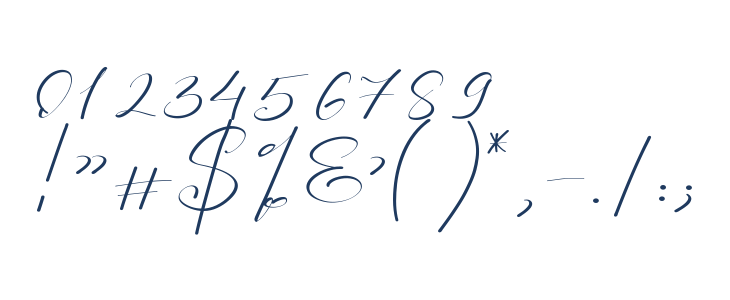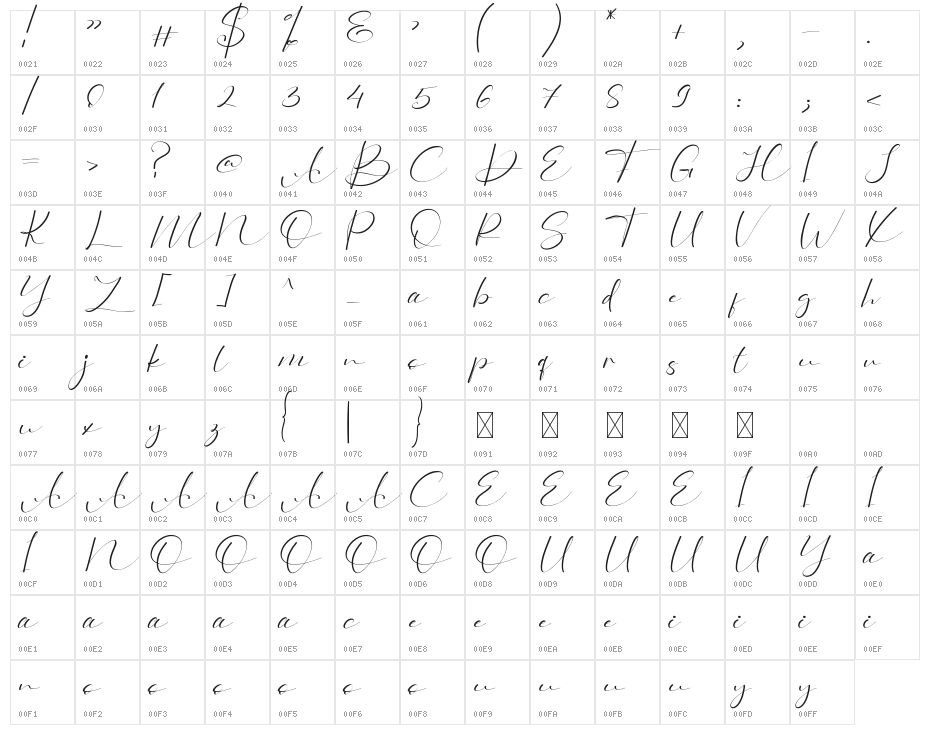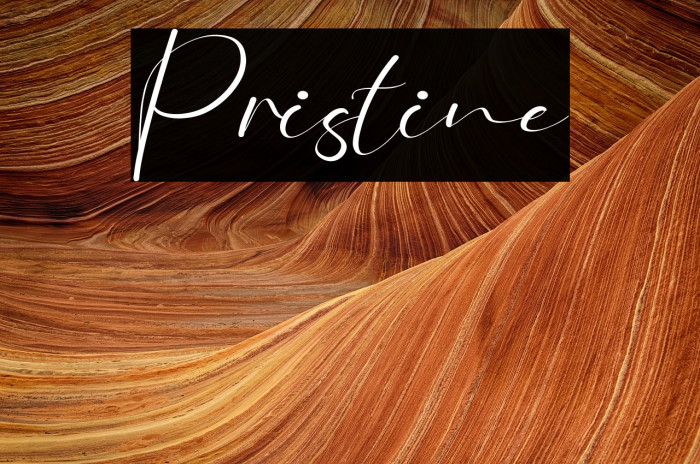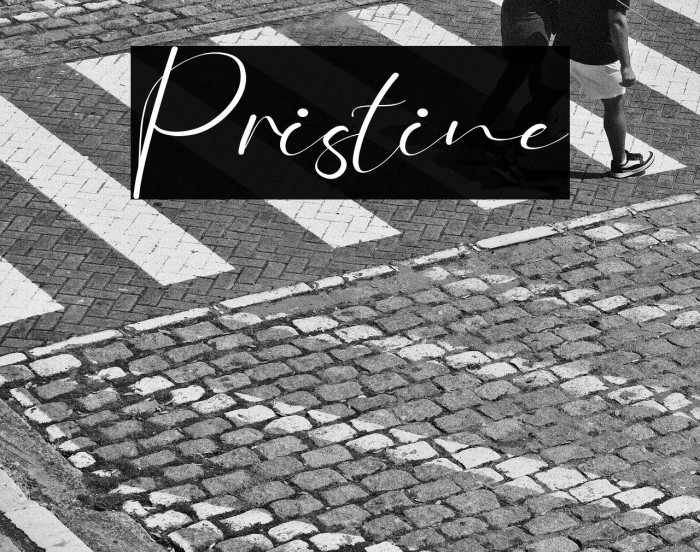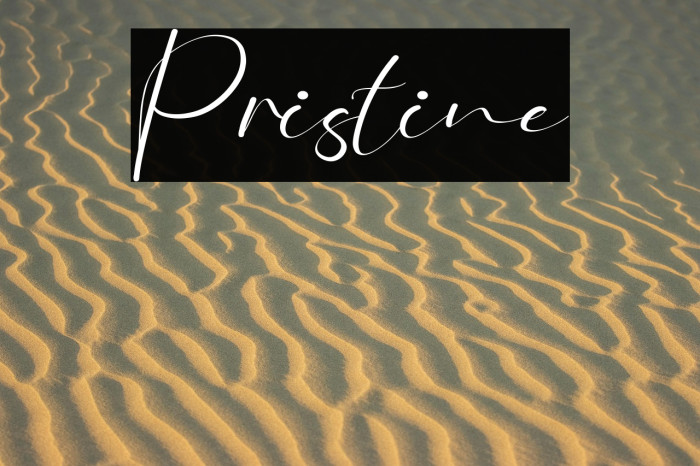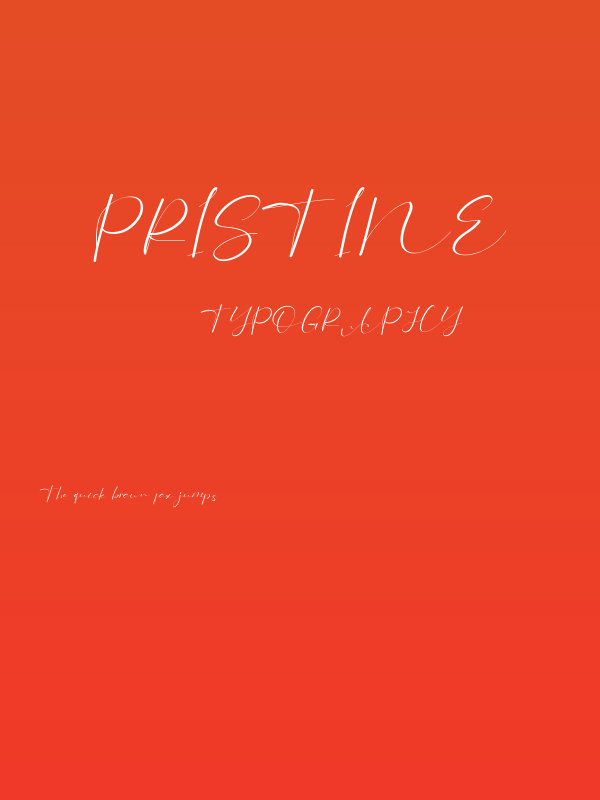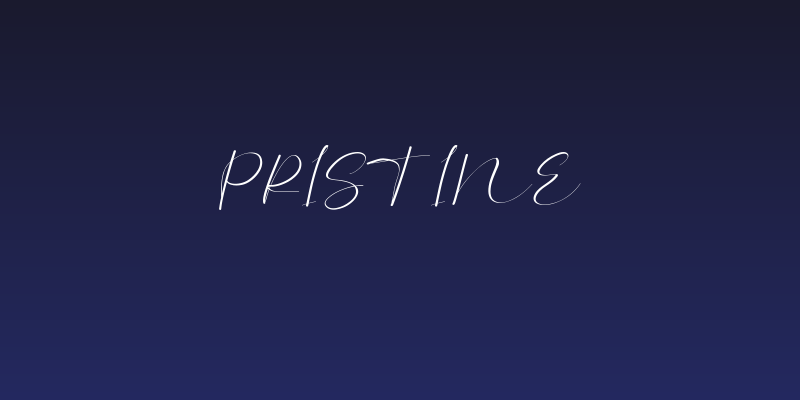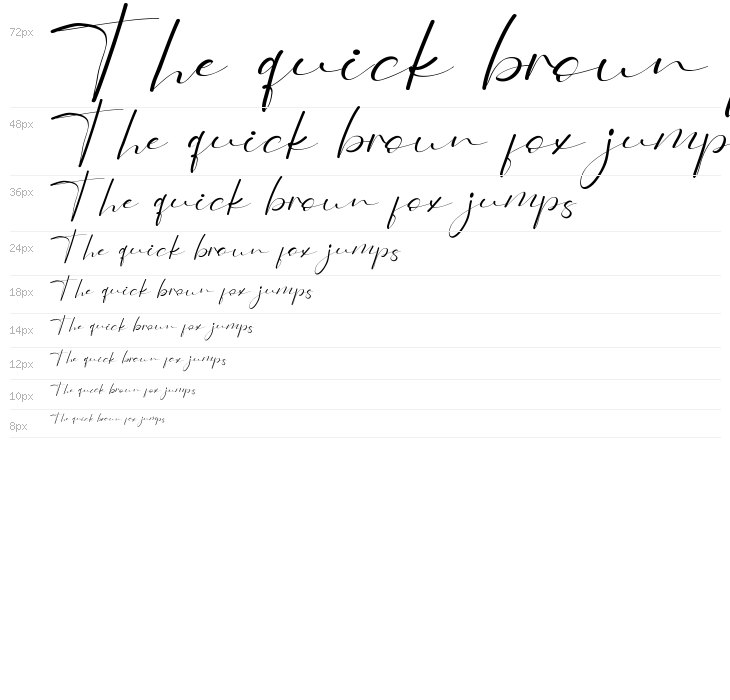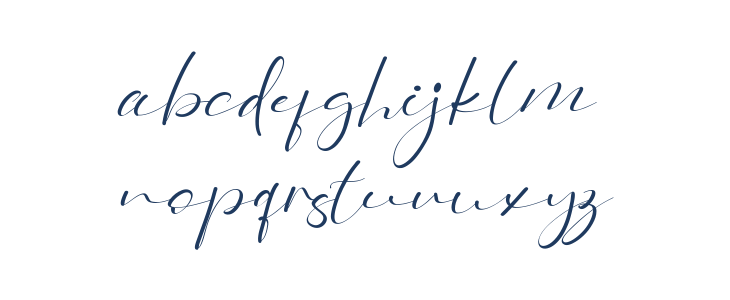
Pristine Font
Pristine Description
This elegant script font features a flowing, cursive style with graceful, sweeping lines and delicate curves. The uppercase letters are characterized by their tall, slender forms and intricate loops, while the lowercase letters maintain a consistent fluidity, enhancing the font's sophisticated appearance. The numerals are stylishly integrated, maintaining the same elegant flow as the letters. Special characters are thoughtfully designed, complementing the overall aesthetic. The font's high contrast between thick and thin strokes adds to its refined and polished look, making it ideal for projects that require a touch of elegance and sophistication.